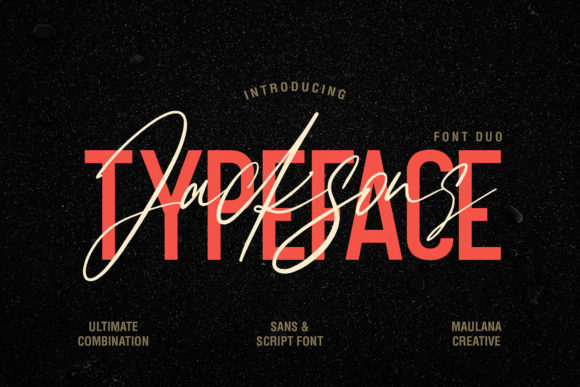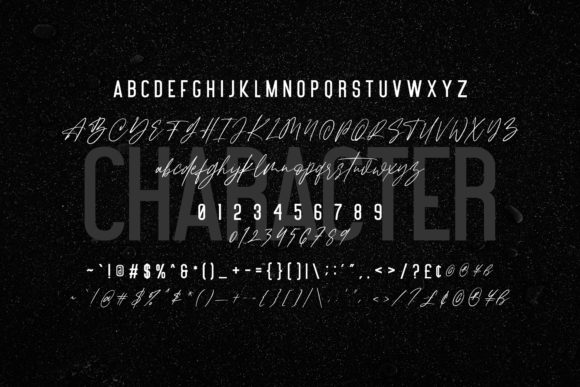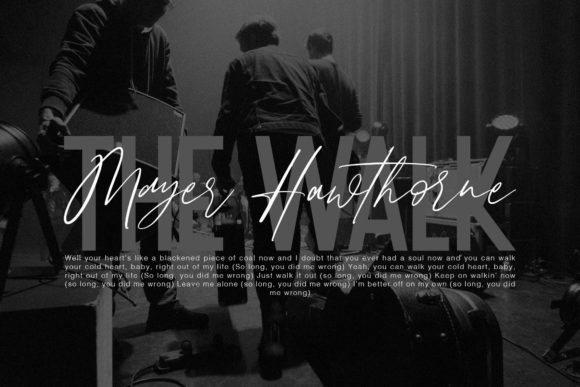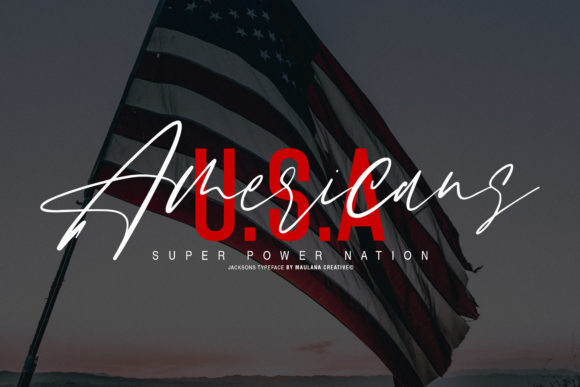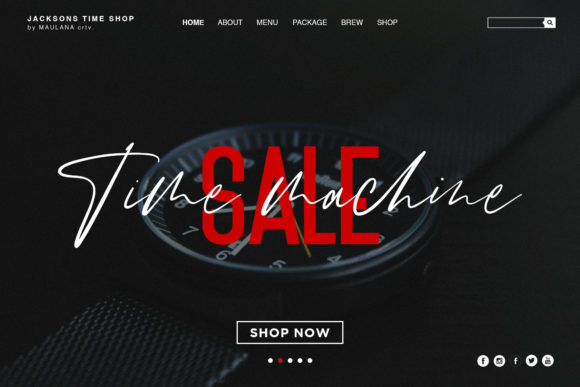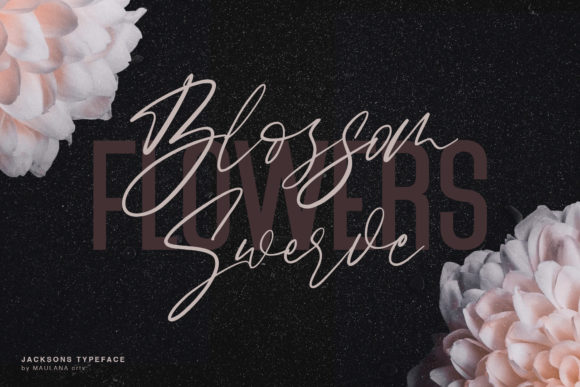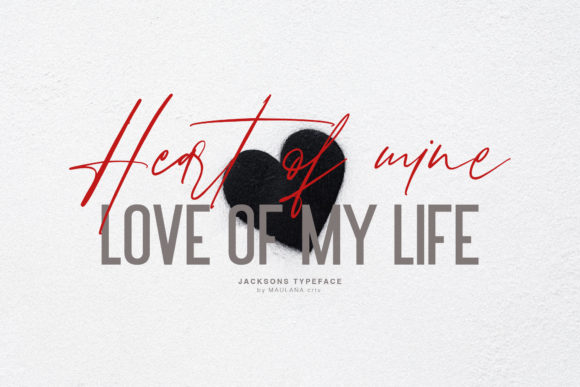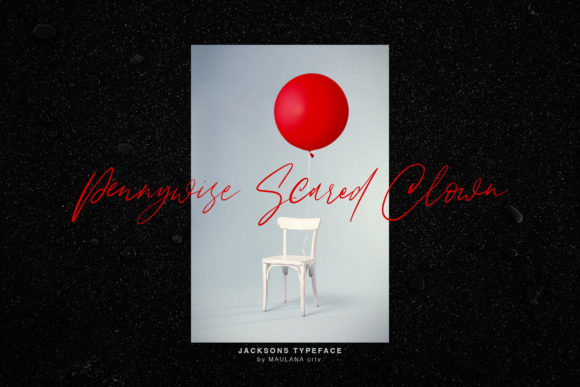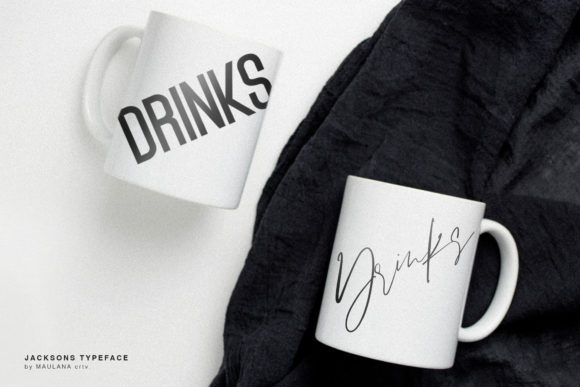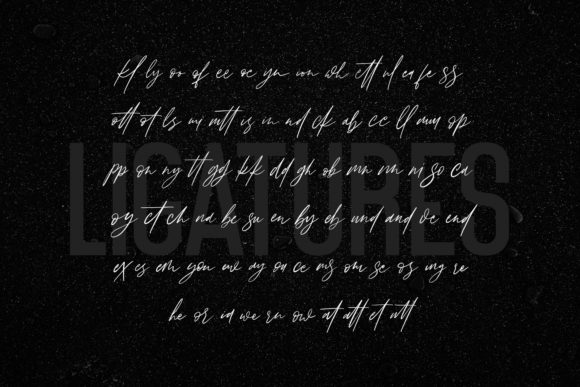
Jacksons Duo Font
About Jacksons Duo Font
Jacksons Duo is lovely font family containing both script & sans font styles. Use them together to make your next crafting project stand out!